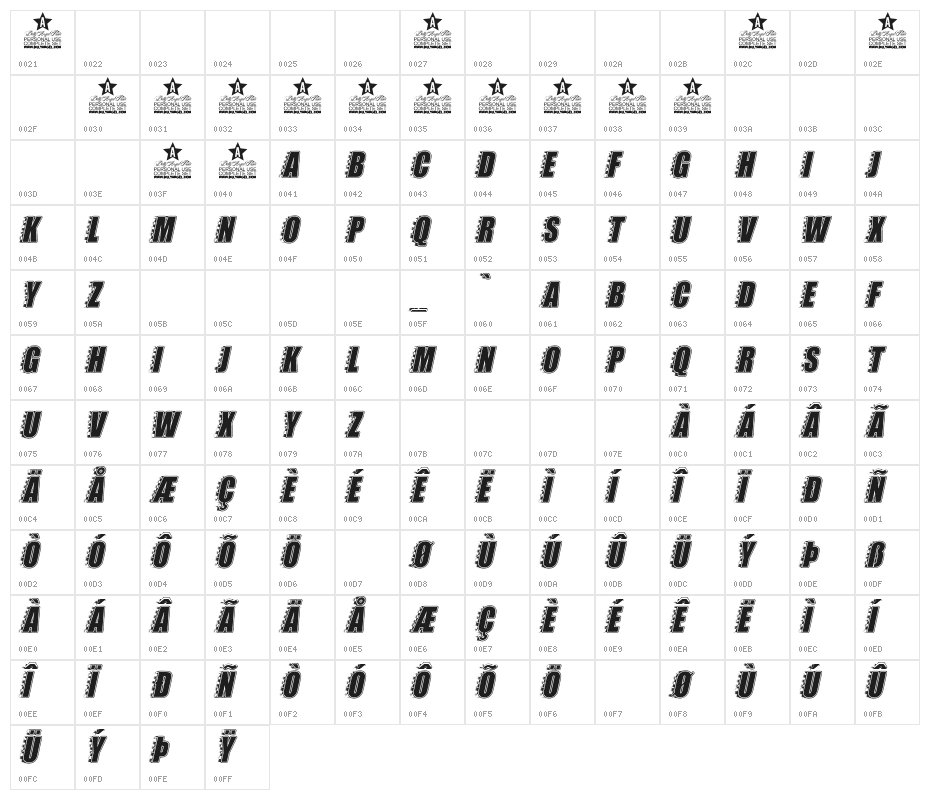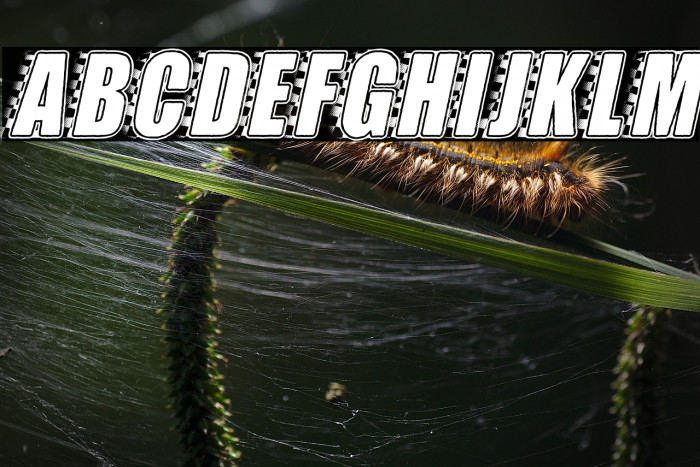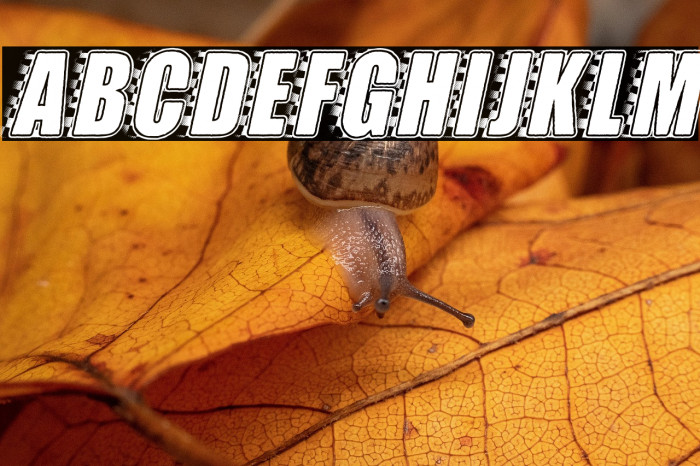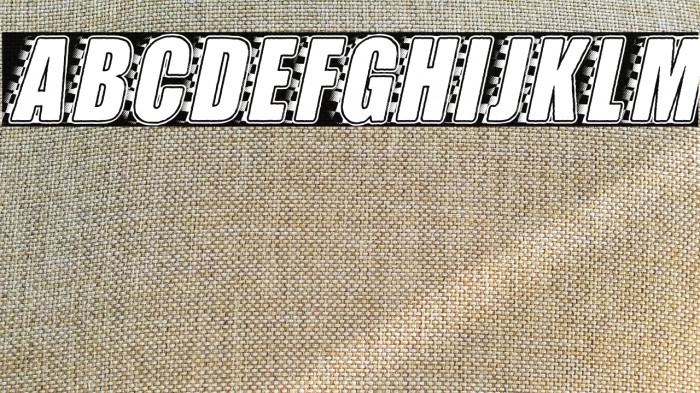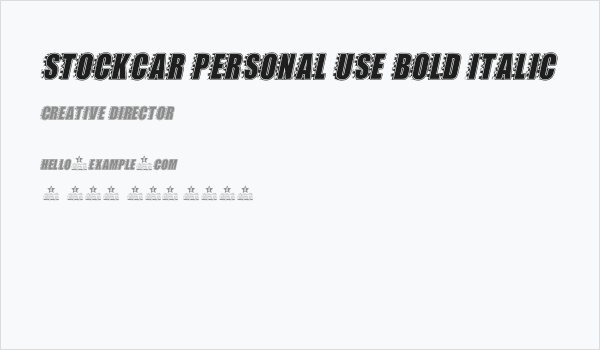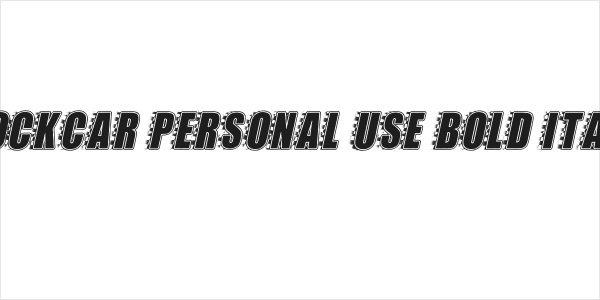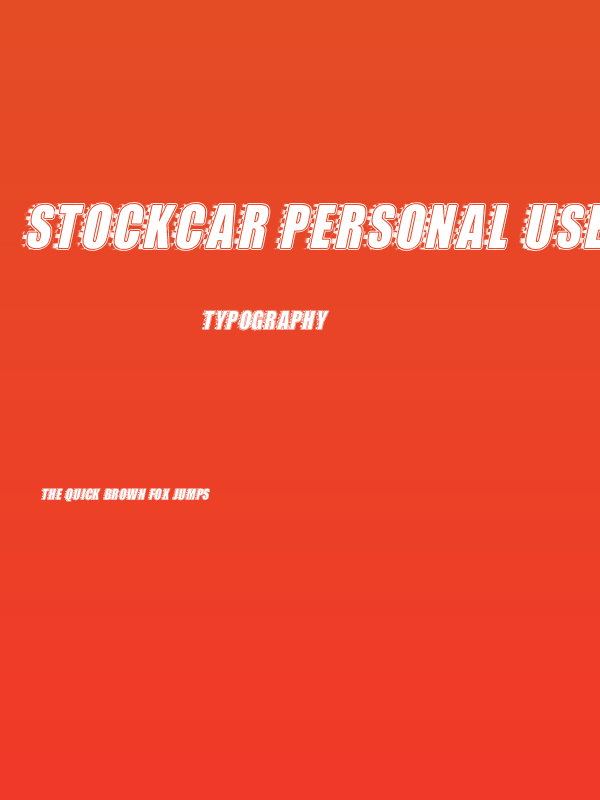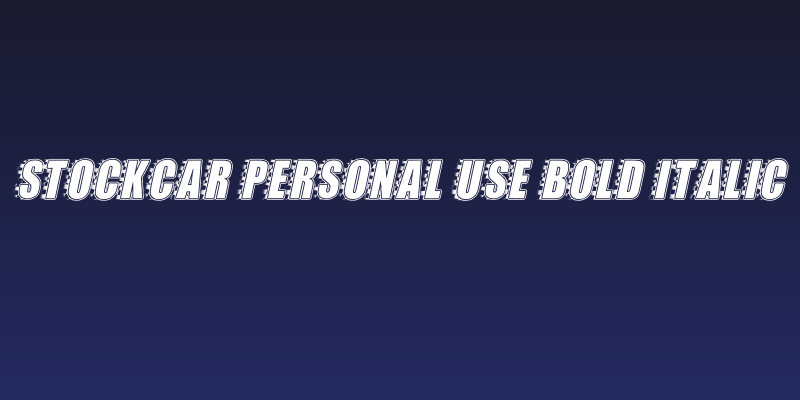
STOCKCAR PERSONAL USE Bold Italic Font
STOCKCAR PERSONAL USE Bold Italic Description
This font features a bold and italicized style with a distinct racing theme. The characters are designed with a strong, dynamic presence, incorporating a shadow effect that adds depth and movement. The uppercase letters are prominent and impactful, making them ideal for attention-grabbing designs. The font's aesthetic is reminiscent of motorsport graphics, with a sense of speed and energy conveyed through its slanted and bold strokes. The design is clean yet decorative, suitable for projects that require a sporty and adventurous look.
| Proposed Projects | Ideal for sports branding, racing event posters, automotive logos, and dynamic advertisements. |